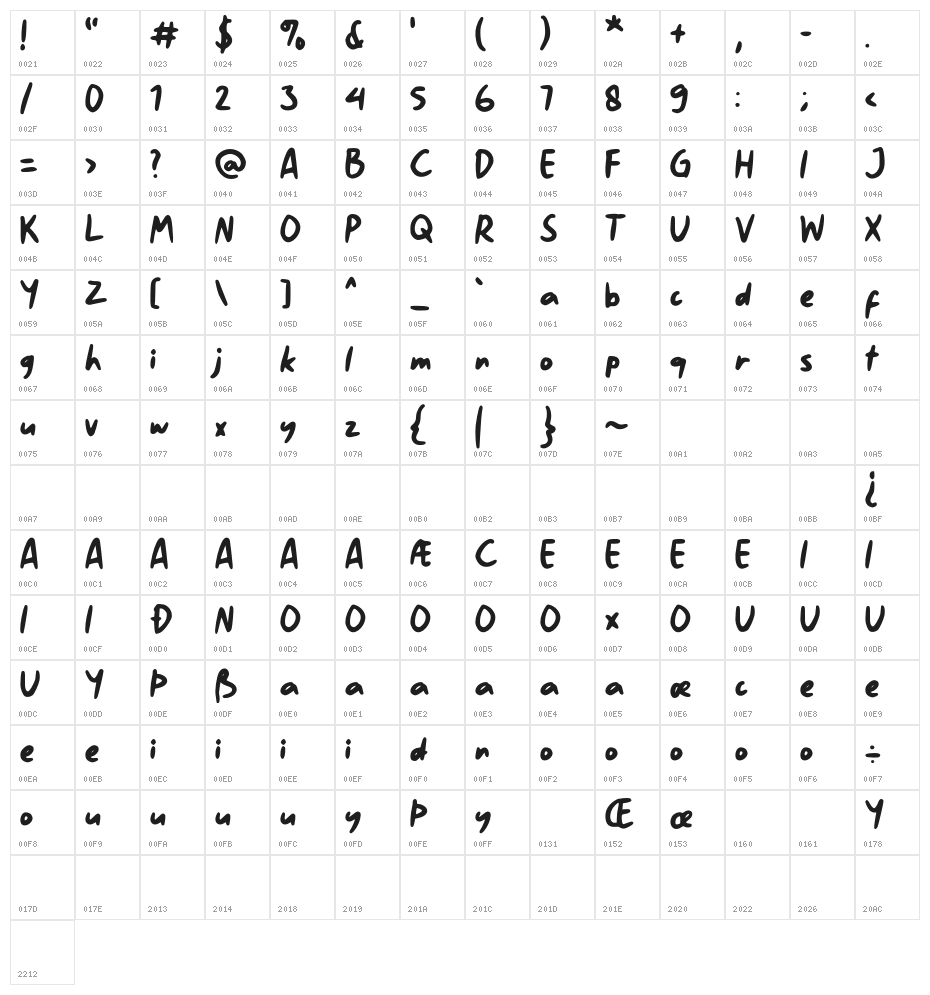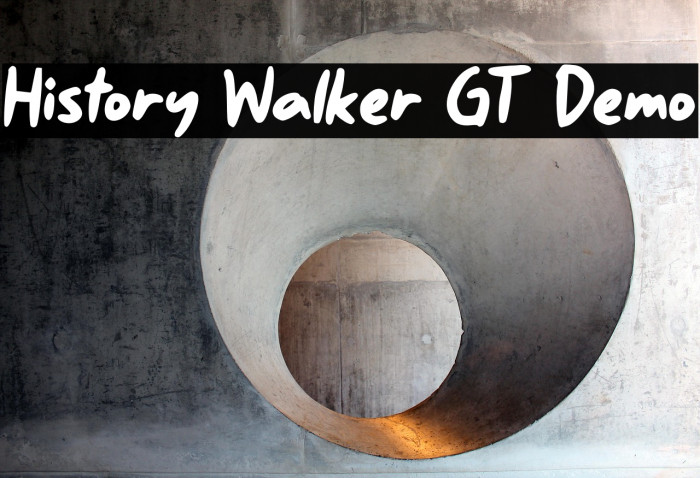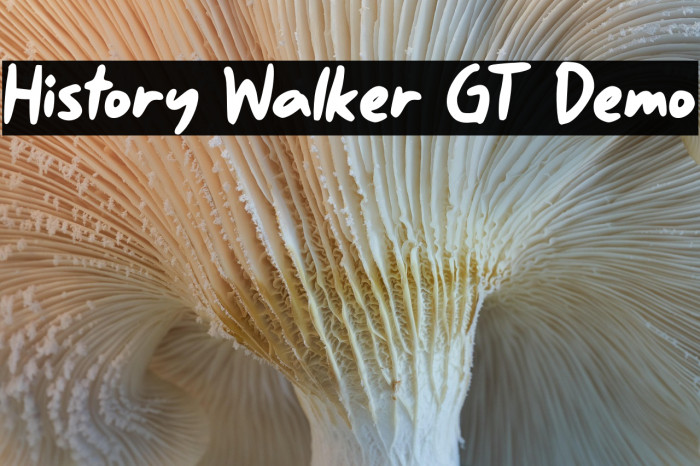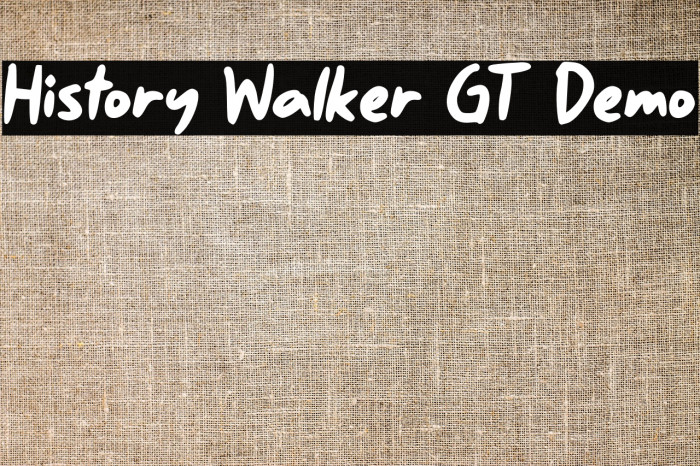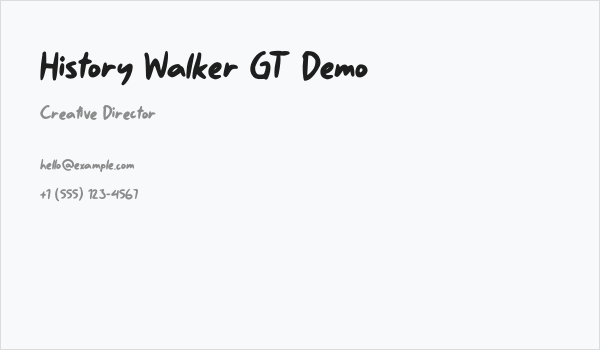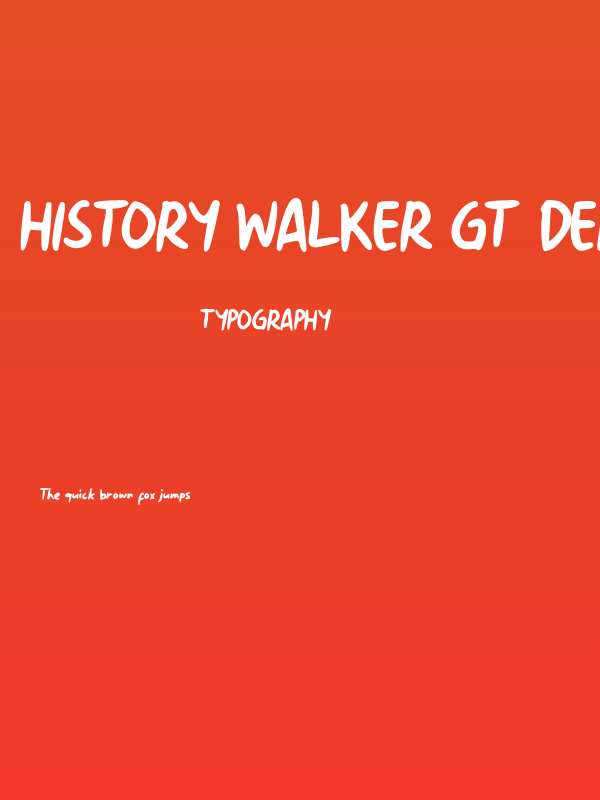
History Walker GT Demo Font
History Walker GT Demo Description
This font exhibits a playful and energetic handwritten style, characterized by its bold and rounded letterforms. The uppercase and lowercase letters maintain a consistent flow, with slightly irregular shapes that add to its charm. The numbers and special characters are crafted with the same lively spirit, making them stand out with their bold presence. The overall design is informal, yet legible, making it suitable for creative projects that require a personal touch. The strokes are thick and uniform, providing a strong visual impact.
| Proposed Projects | Ideal for greeting cards, children's books, playful branding, and social media graphics. |